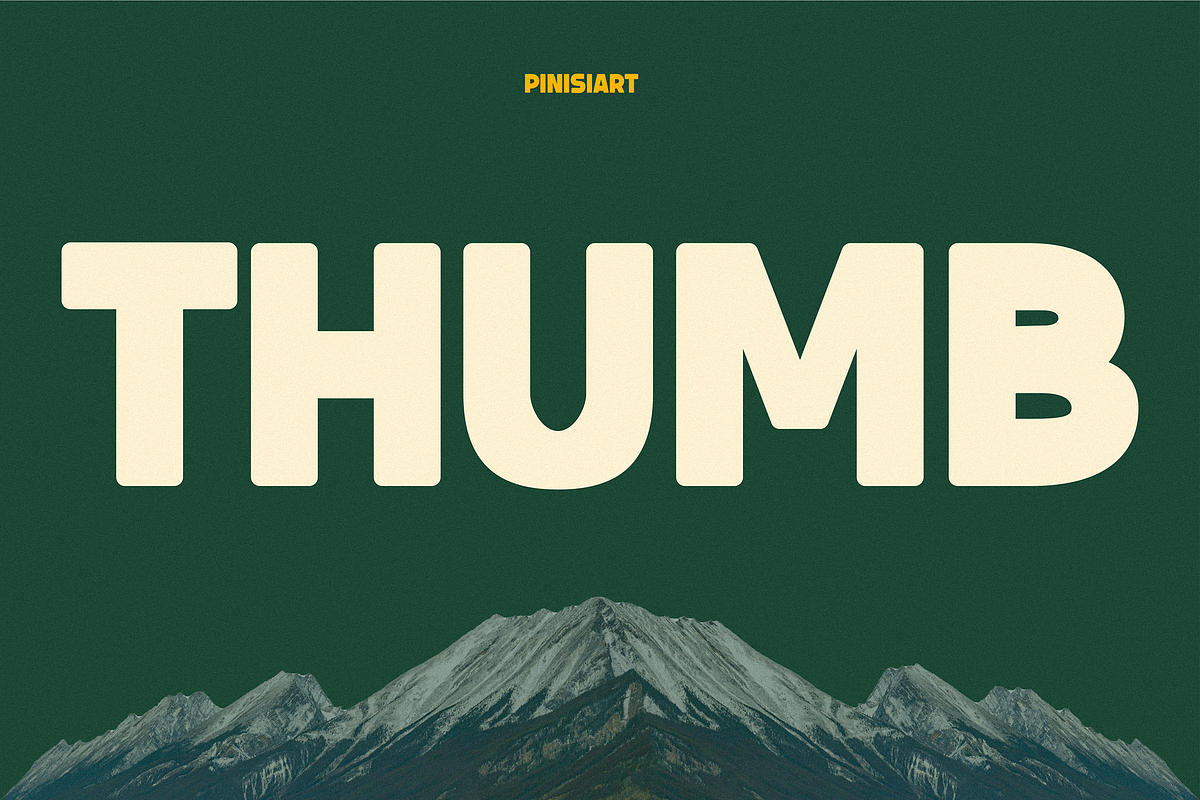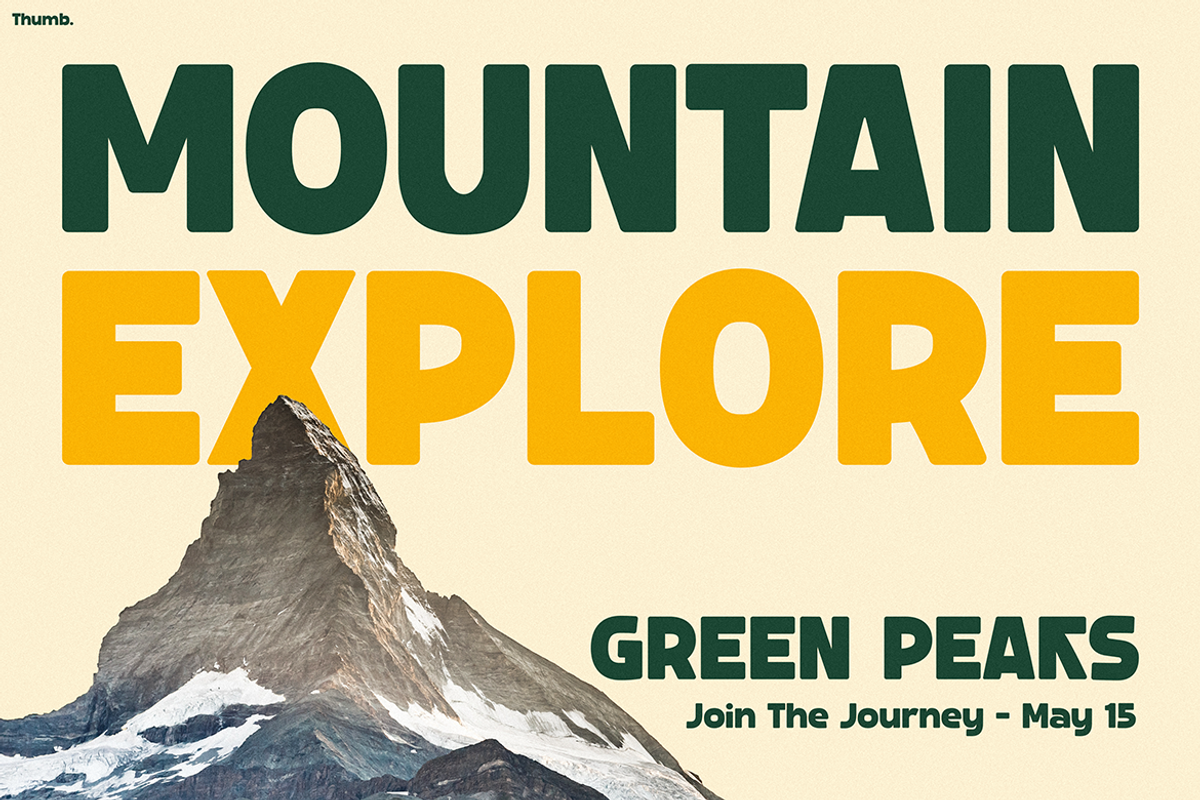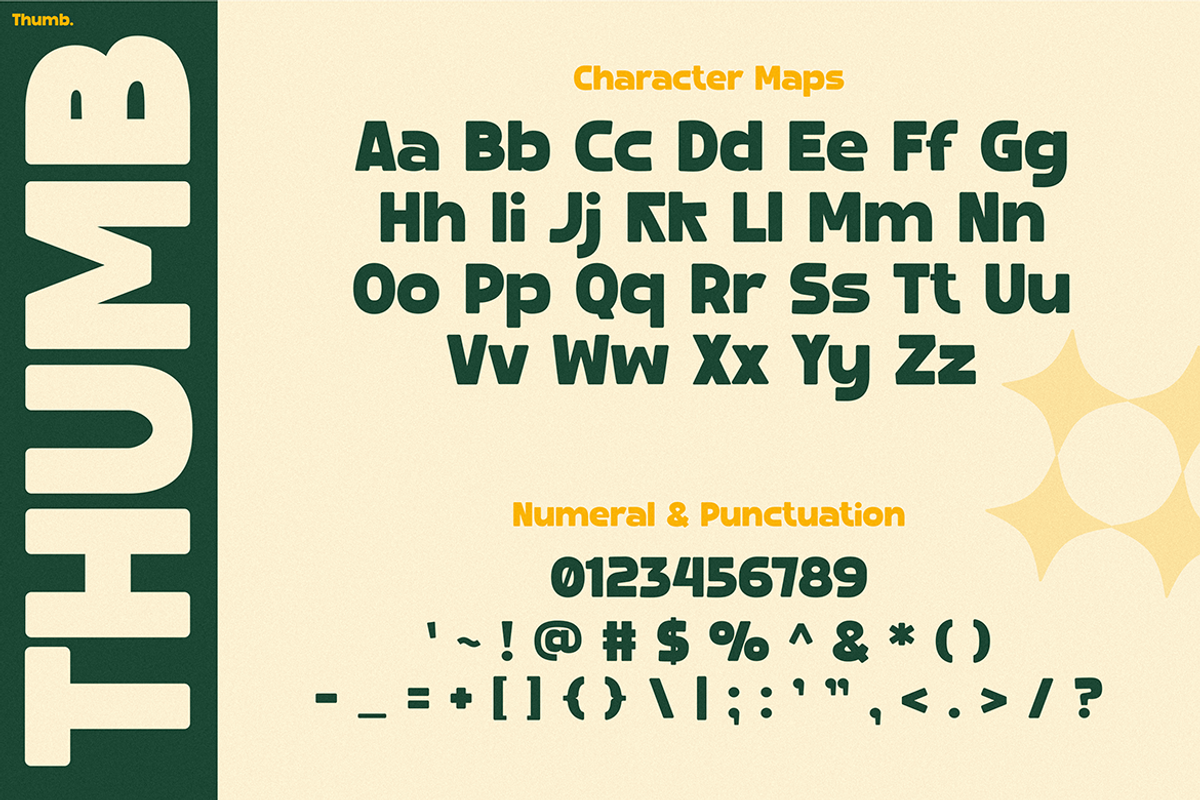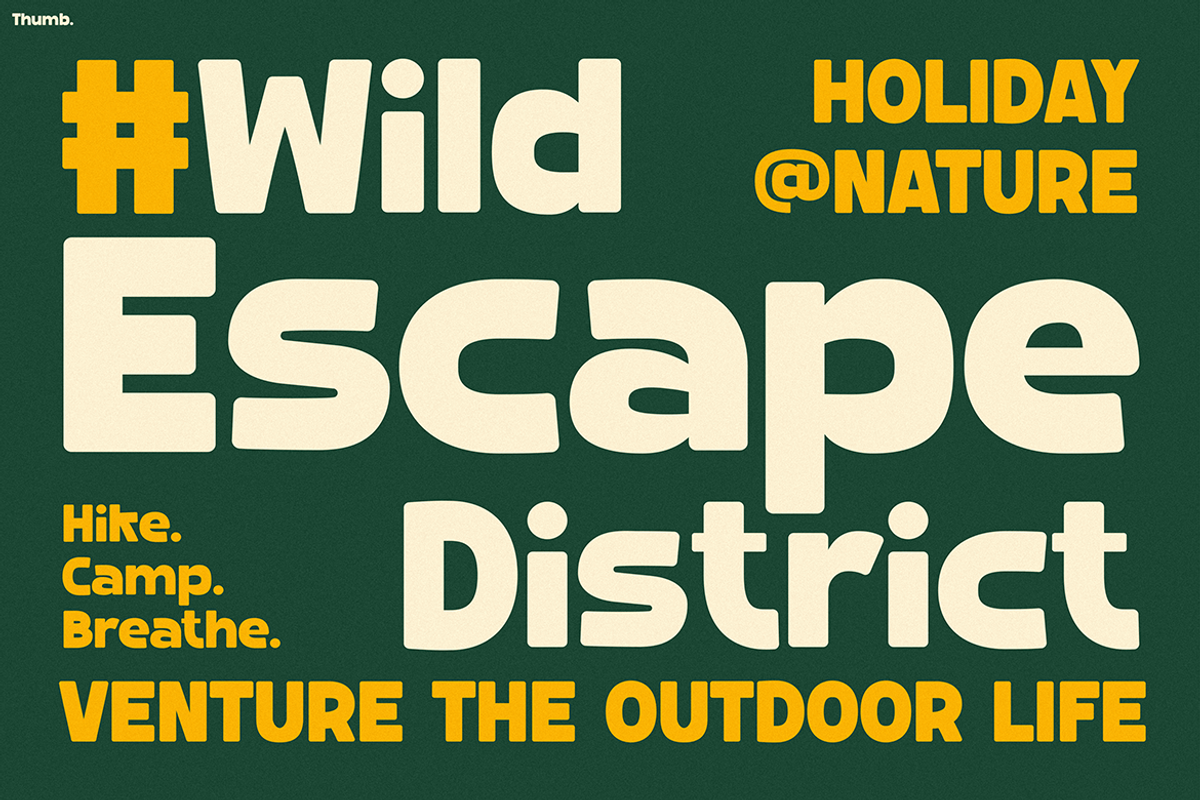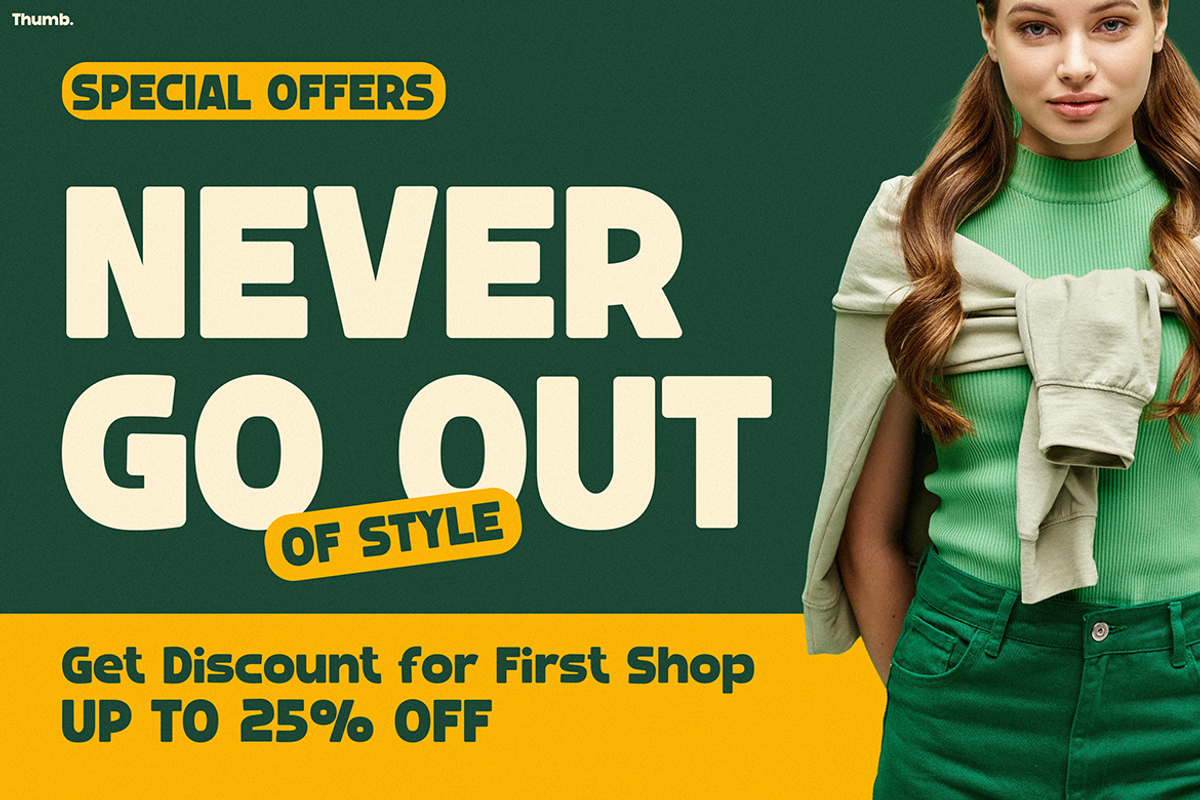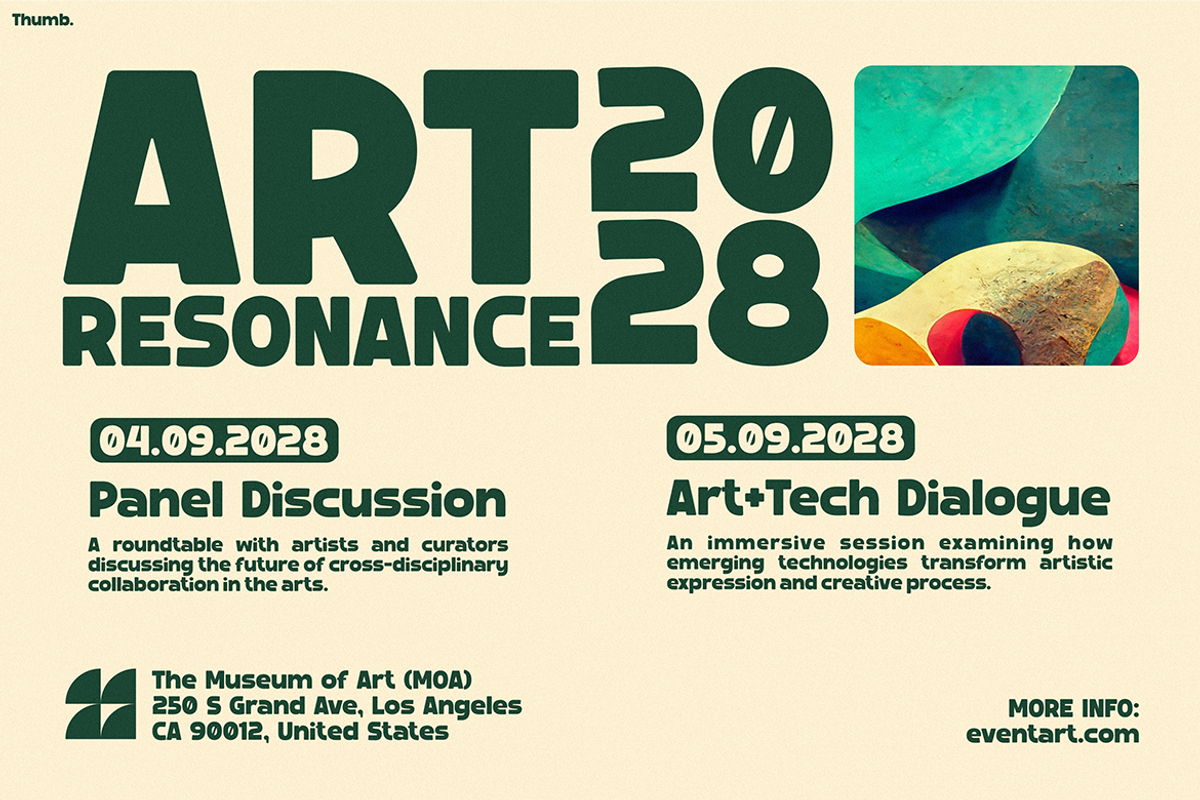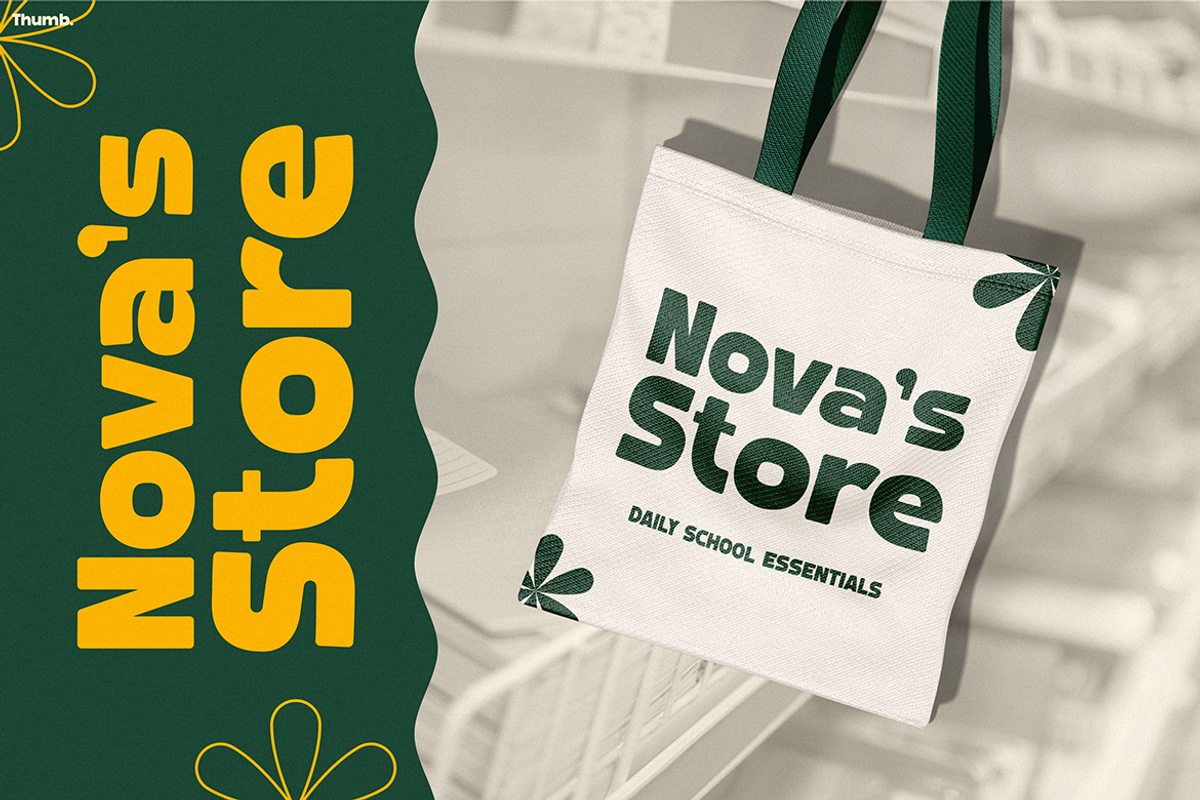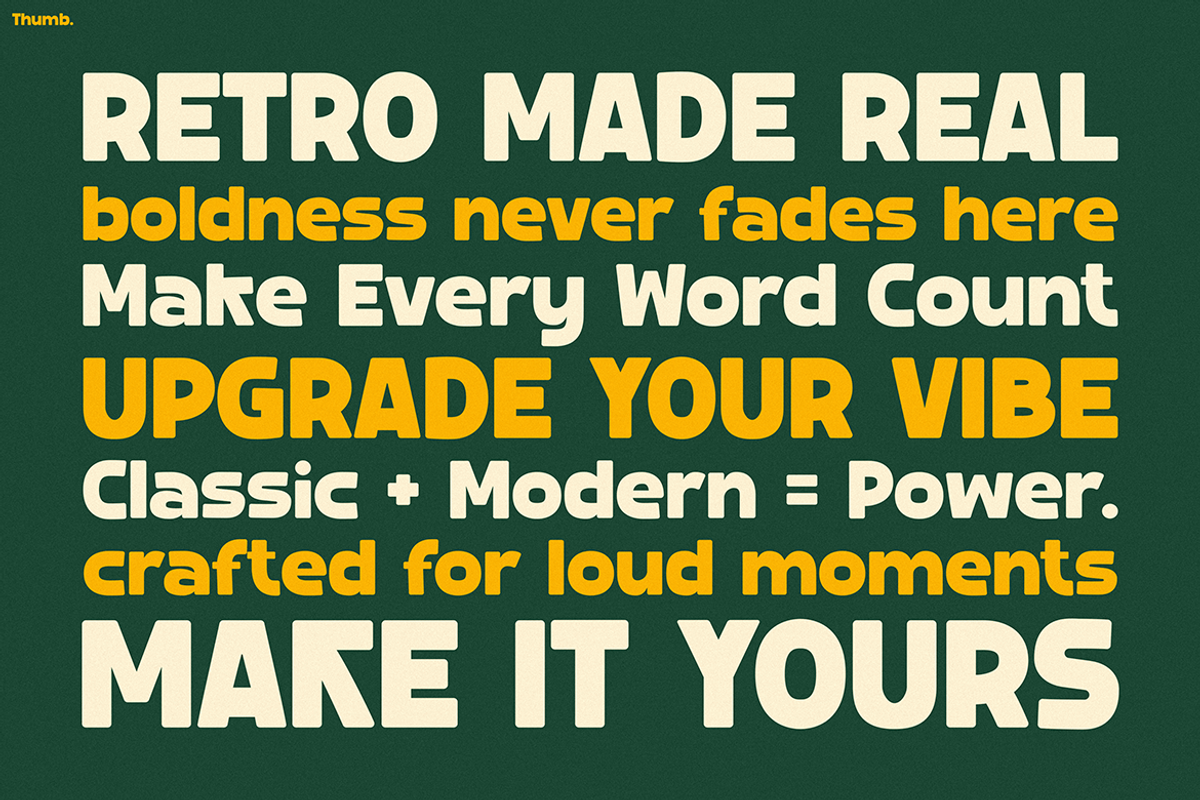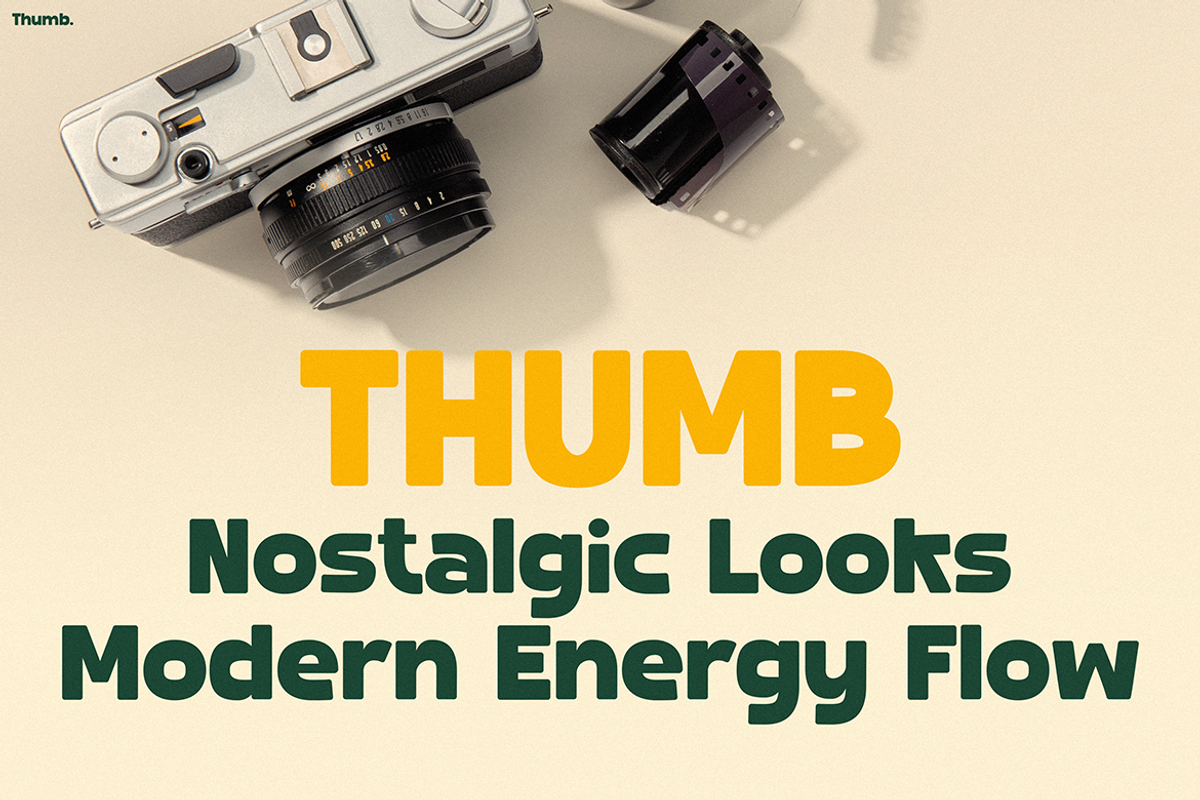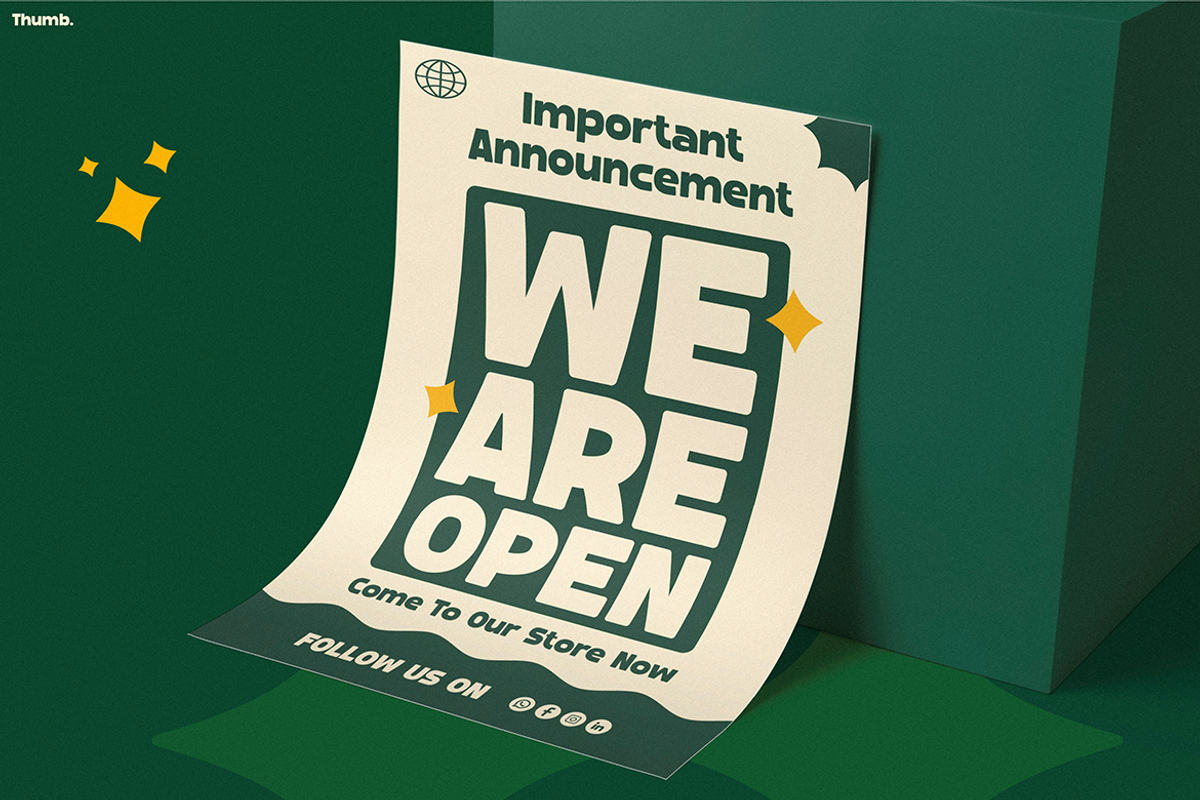
THUMB
Retro Font THUMB – Bold Nostalgia, Modern Creative Energy
Retro Font THUMB celebrates the beauty of bold nostalgia and modern creativity in one stunning typeface. Inspired by vintage posters and 70s design energy, this font turns every word into a statement full of warmth and personality. Its lively letterforms bring out the charm of old-school aesthetics while maintaining the clarity and precision that modern designs demand.
Every curve and angle of Retro Font THUMB reflects a perfect balance between geometric strength and playful expression. The thick, rounded shapes radiate confidence, while the smooth flow keeps your text friendly and approachable. Moreover, the design’s visual rhythm helps your message capture attention instantly. Whether you create logos, posters, or brand headlines, this font makes your words stand out beautifully.
In addition,THUMB offers excellent readability across sizes and mediums. It performs equally well in digital and print formats, ensuring your visuals remain consistent and impactful. Use it to build designs that feel authentic, energetic, and full of retro charm.